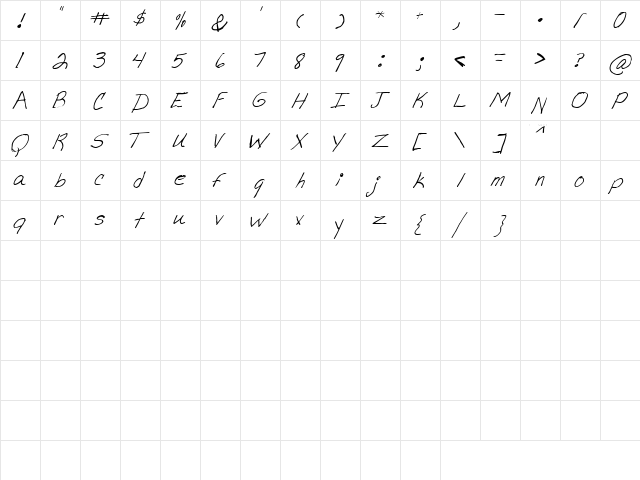
LD Print 18 Regular
LD Print 18 takes a measured approach to typography — its balanced proportions and neutral character make it a reliable workhorse for both digital and print work.